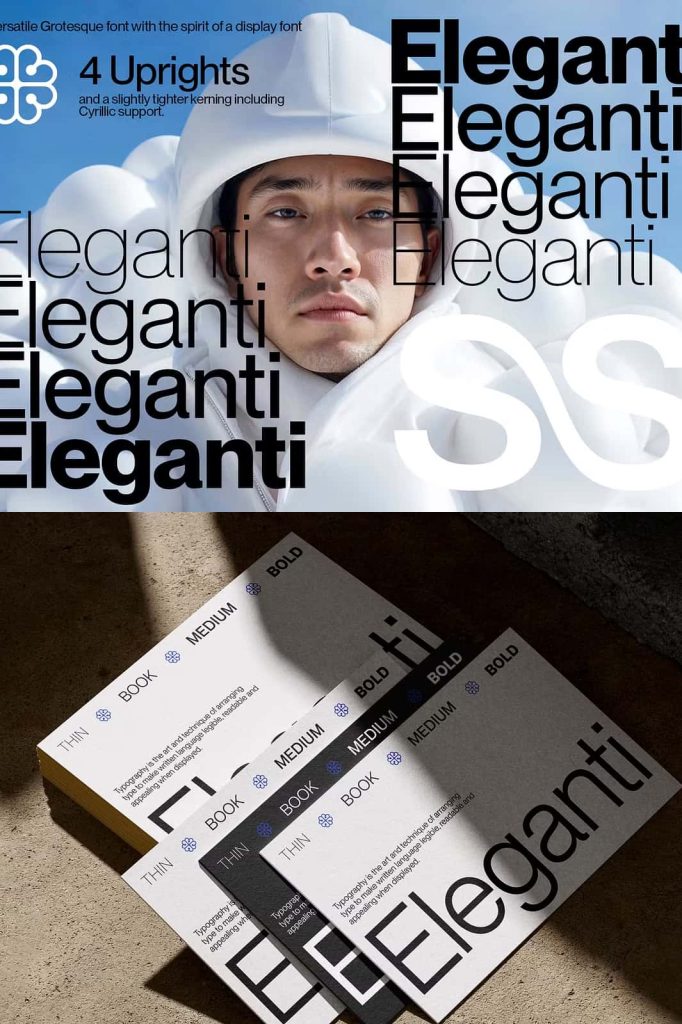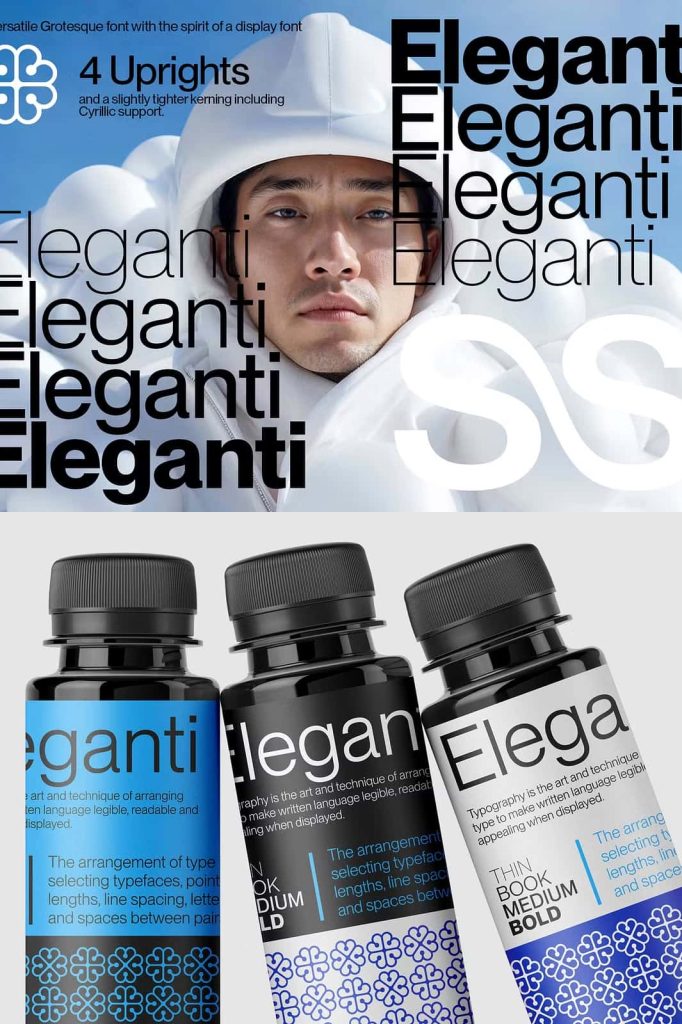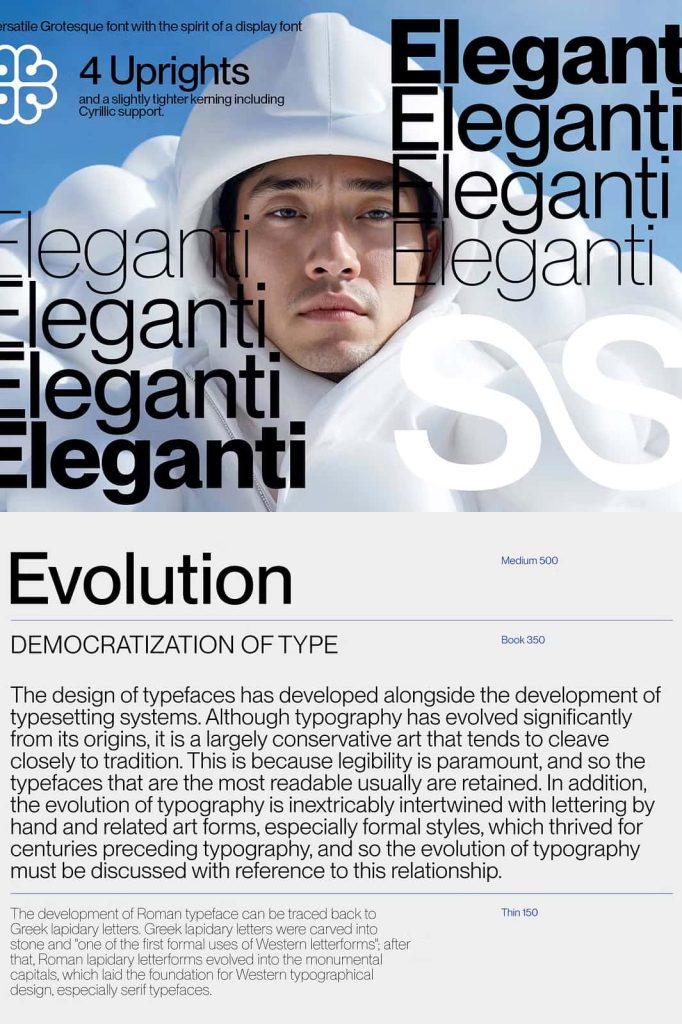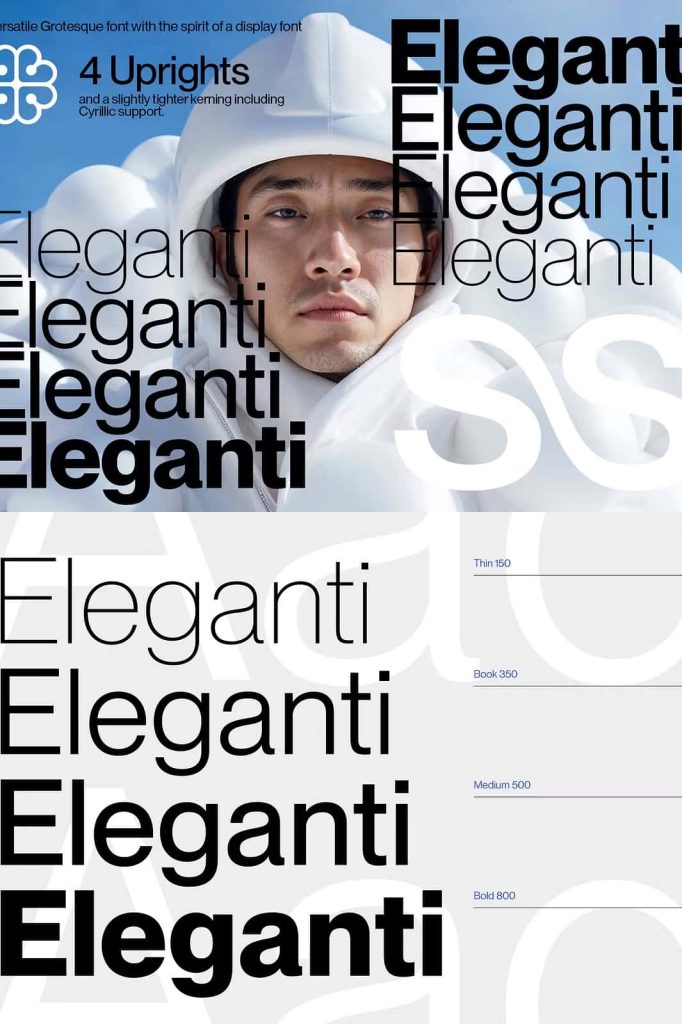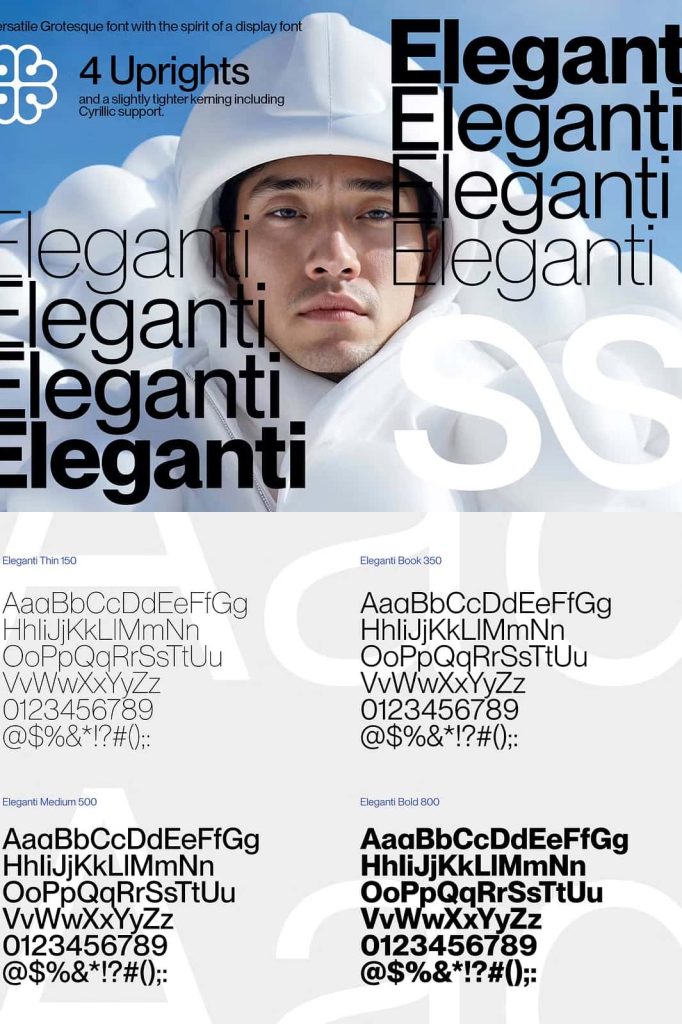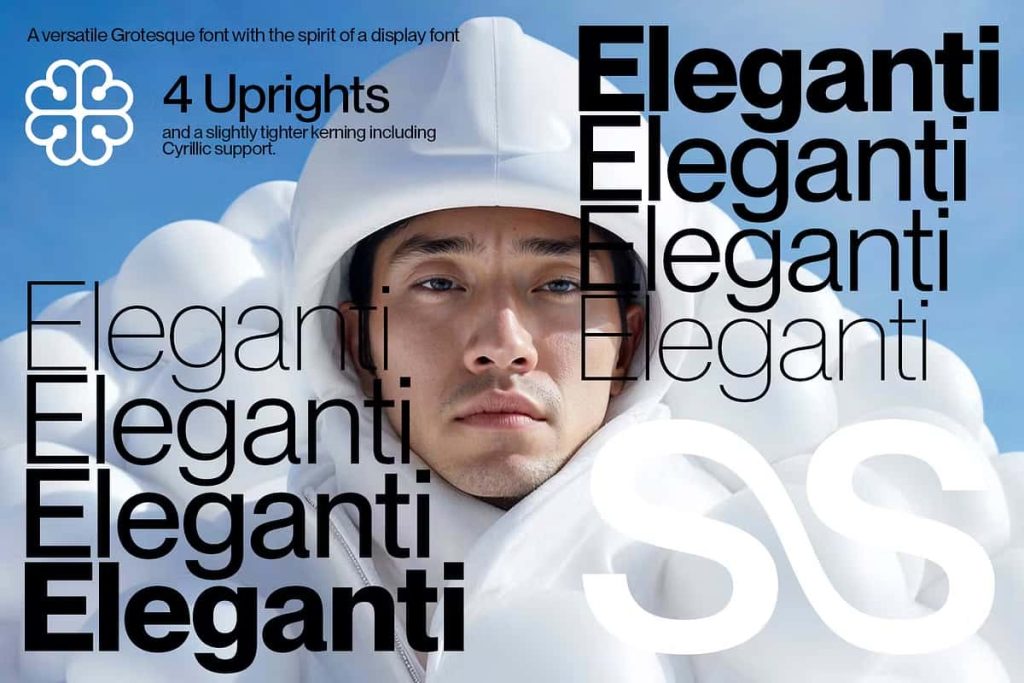
Eleganti – Grotesk Sans SerifleastedJuly 21, 2024Fonts Eleganti is an elegant, clean, and minimalistic grotesk font that embodies the essence of modern sans serif design. Download